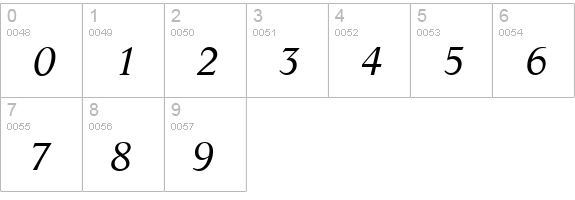
L730-Roman-Italic Font Details
L730-Roman-Italic is a distinctive, italic variant in the L730 typeface family \xE2\x80\x94 well suited to design and typography projects.
Introducing the stunning L730 Roman Italic font, a timeless typeface that effortlessly combines classic elegance with a modern twist. This versatile font exudes sophistication and style, making it perfect for a wide range of design projects. With its graceful curves and sleek lines, the L730 Roman Italic font is sure to make a lasting impression on any audience. Whether you're working on a branding project, editorial design, or any other creative endeavor, this font will add a touch of refinement and class to your work. Best of all, the L730 Roman Italic font is available for free download at FontsMarket.com. So don't miss out on the opportunity to enhance your designs with this exquisite typeface. Download it today and elevate your projects to a whole new level of sophistication.